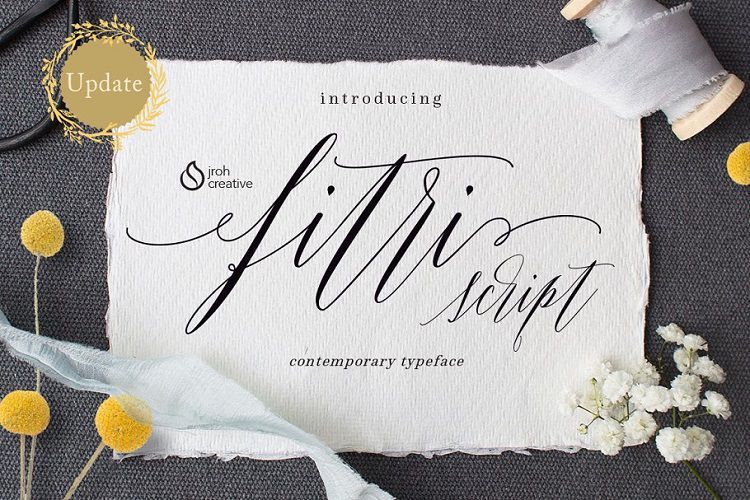
Fitri Script Font
Hi all, introduce my new font Fitri Script is a unique blend of classic and modern font. imperfect style ups and downs, like a dance letters, smooth, clean and simple.
Fitri Script font perfect for wedding, event, invitation, escort card, table number, header menus, display, logos, slider blog, custom address, stamps, packaging, greeting card, etc.
Fitri Script comes with a complete set of standard characters, eastern diacritic symbols, consist 591 glyphs in total, and 368 alternative characters as OpenType features to play with. The alternative characters were divided into several OpenType features such as Ligature, Contextual Alternates, and Stylistic Sets.
You can create an attractive message by using the alternate characters in your design.
The features is:
• Discretionary ligatures
• Contextual alternate
• Swash
• initial and terminal
• Stylistic alternates
• PUA encoded.